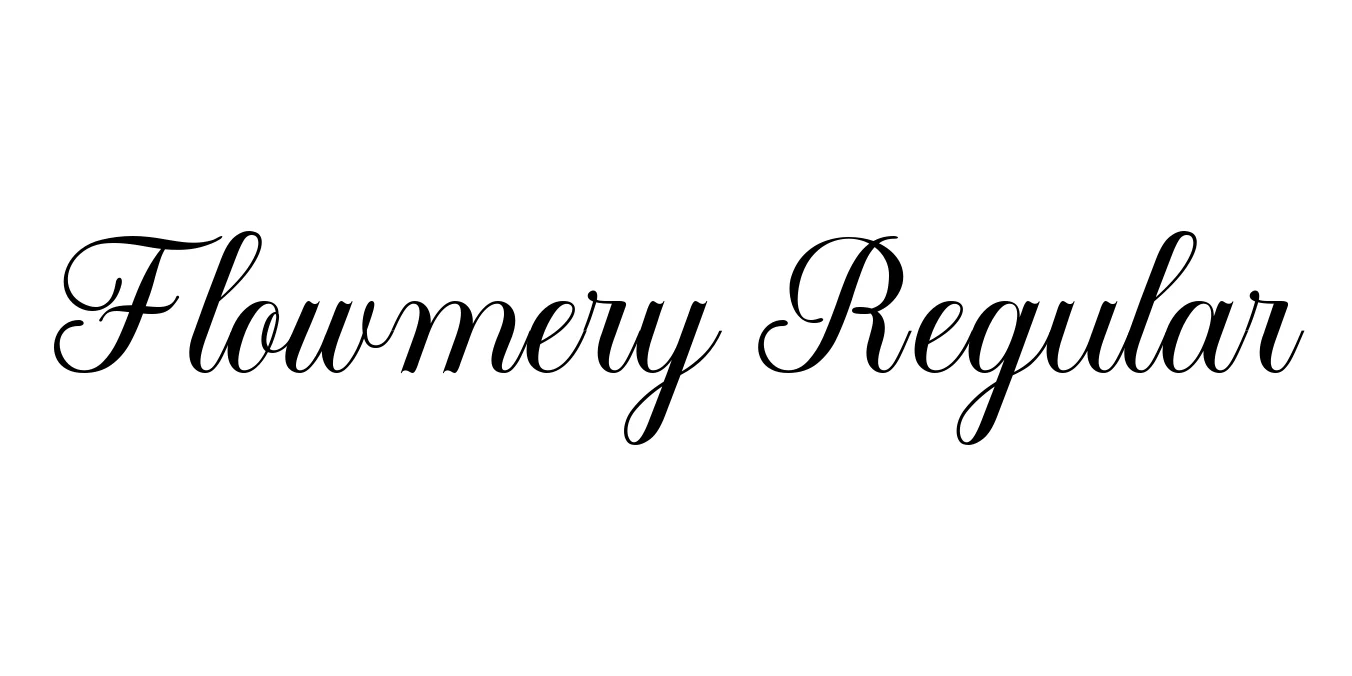
Flowmery Regular
Designed by Letterhend Studio
Flowmery Regular is a sophisticated and elegant script typeface designed to bring a touch of class to any creative project. Developed by Letterhend Studio, this font features fluid strokes and organic curves that mimic natural handwriting, making it a perfect choice for high-end branding and luxury design aesthetics.
With its comprehensive set of alternates and ligatures, Flowmery Regular provides designers with the flexibility to create unique, custom-looking typography. Since its release, it has become a popular choice for wedding invitations, logo design, and editorial layouts, where a balance of professionalism and artistic flair is required.
Flowmery Regular Best Uses
Ideal for invitations, RSVP cards, and save-the-date notes.
Perfect for luxury logos, fashion labels, and boutique signatures.
Great for creating elegant quotes and aesthetic Instagram posts.
Adds a premium feel to cosmetics and high-end product boxes.